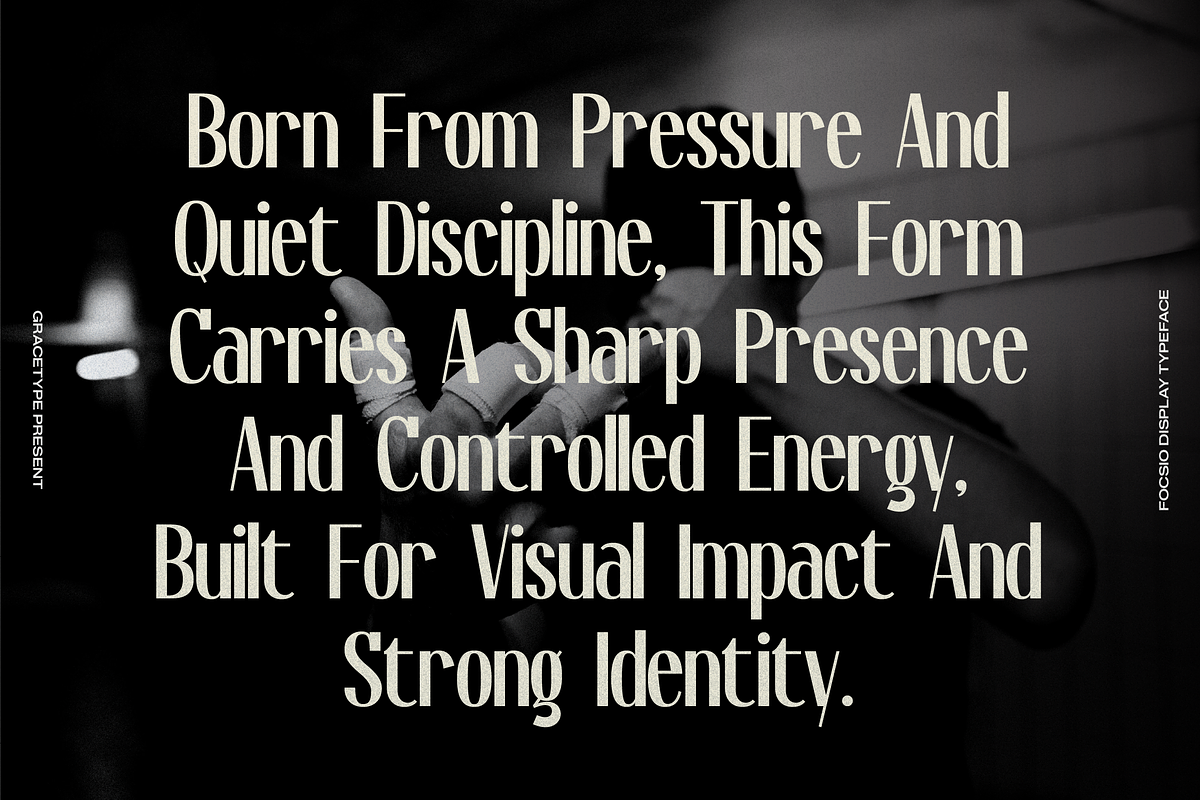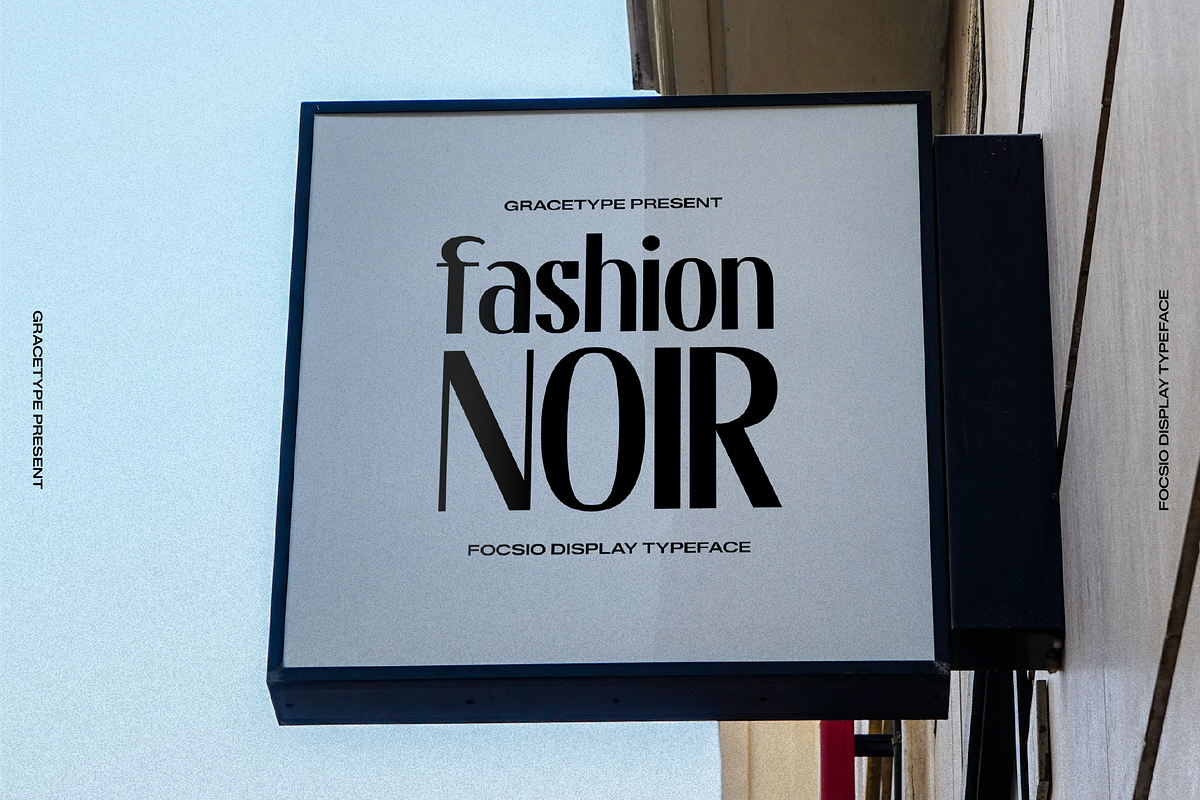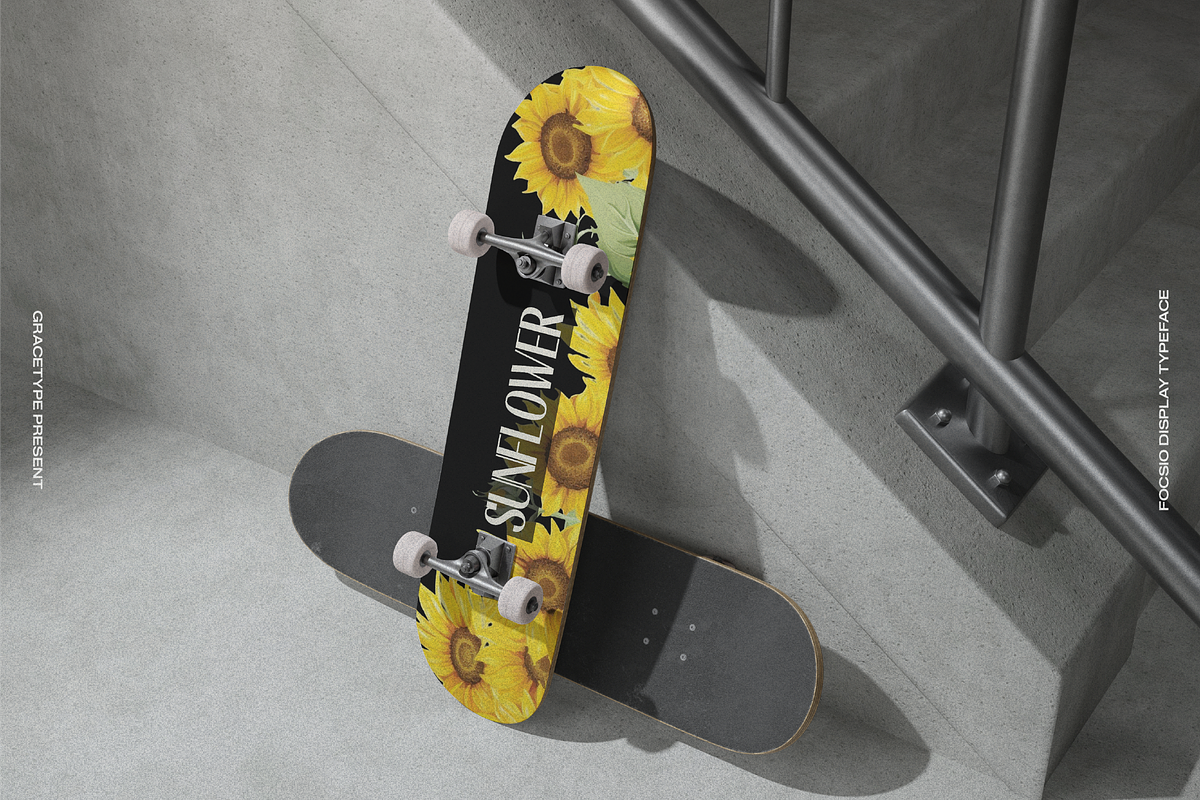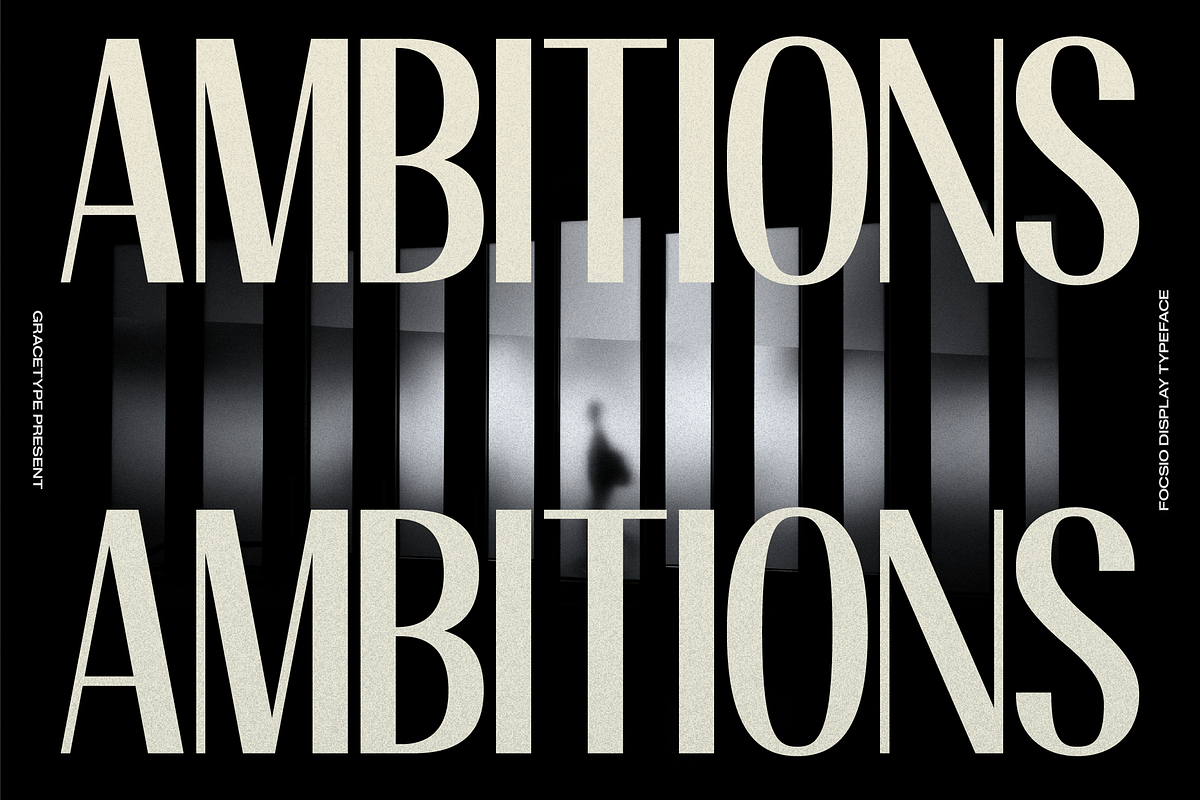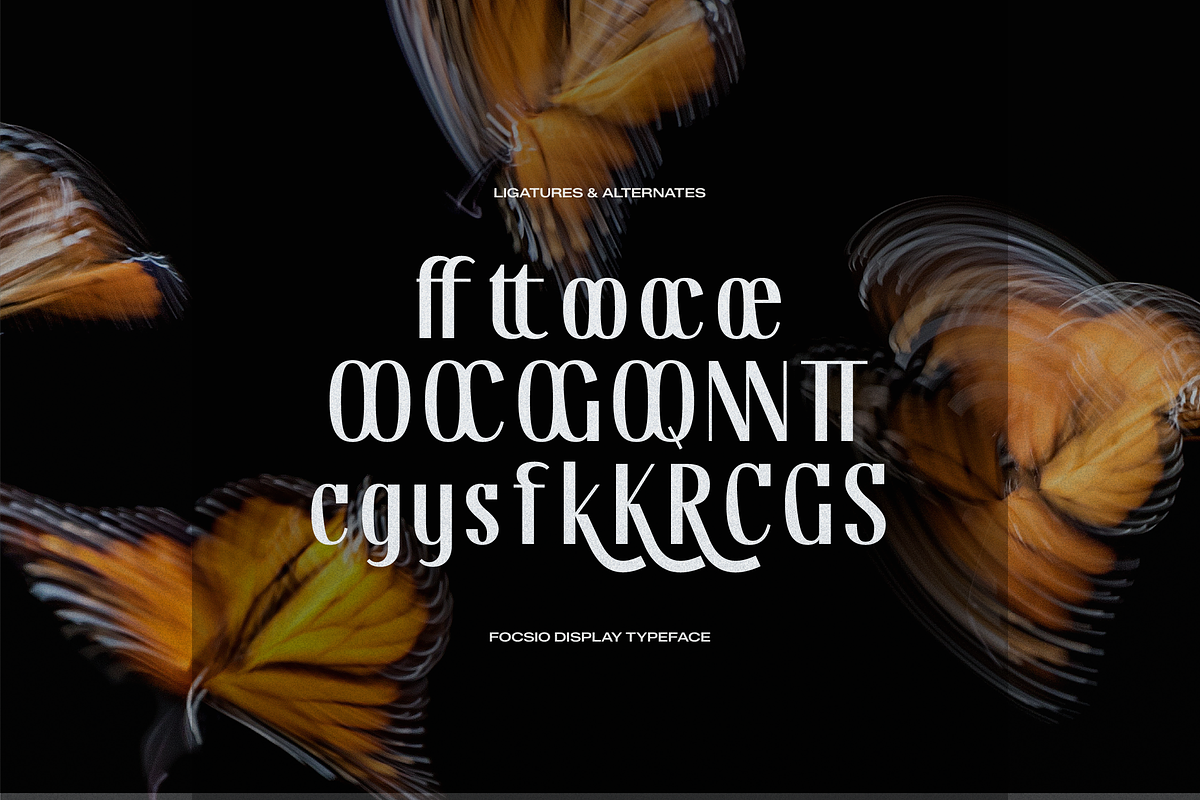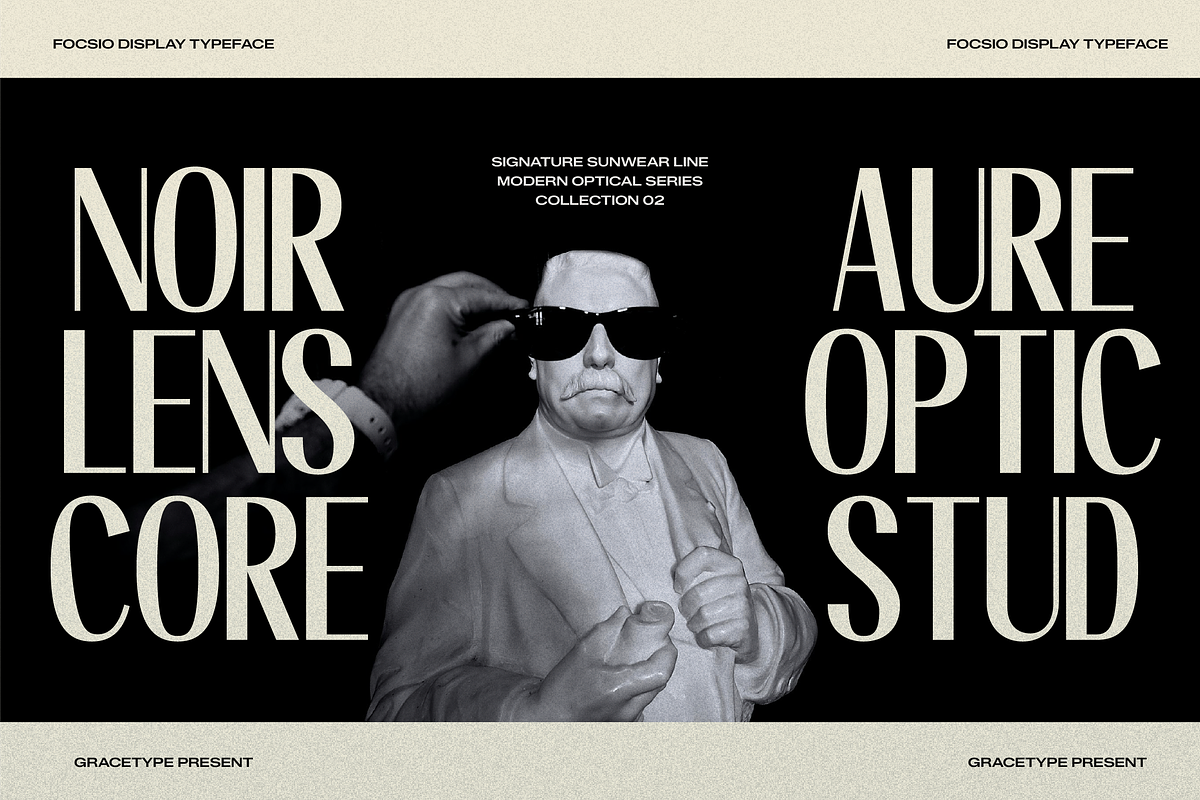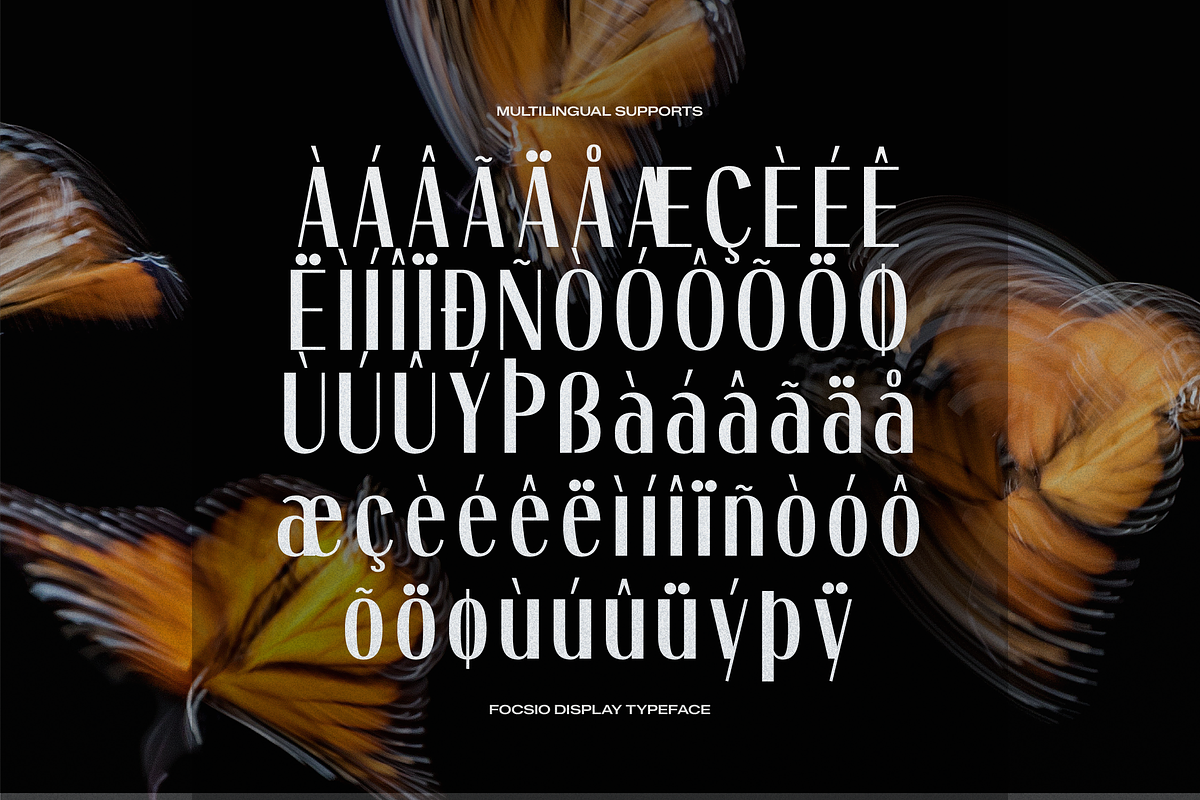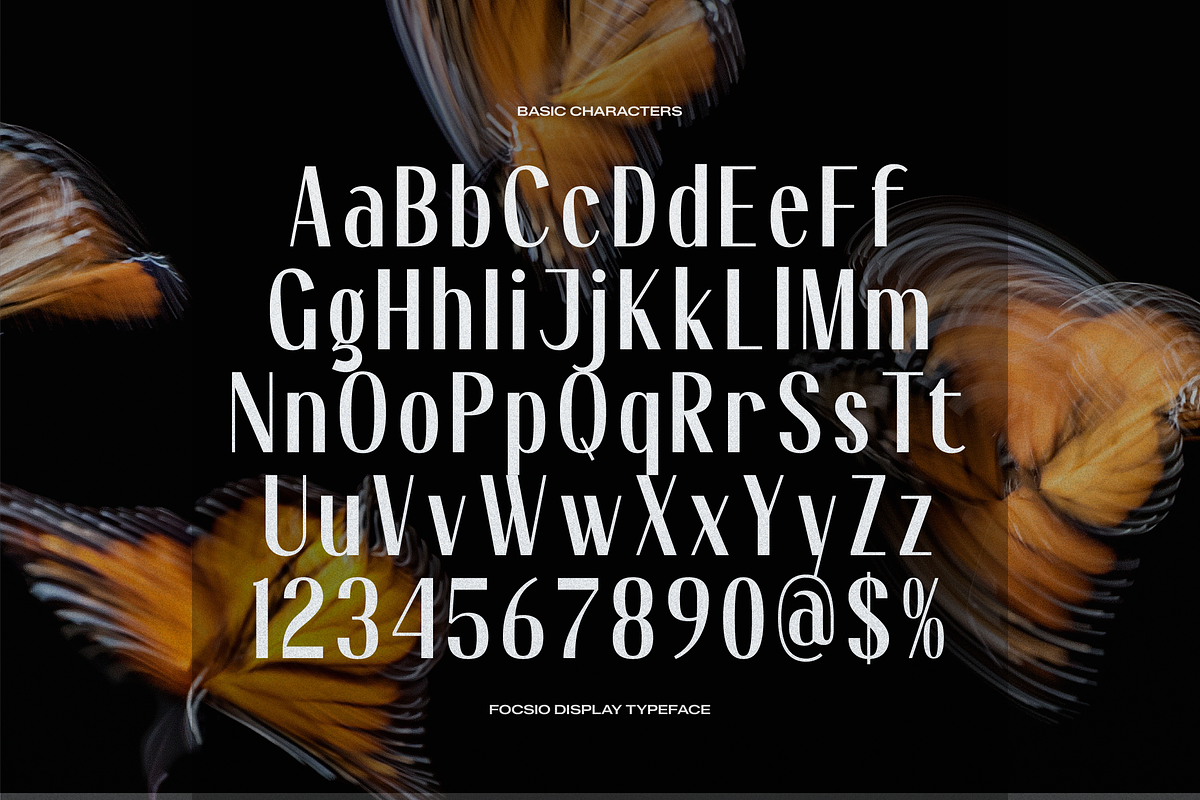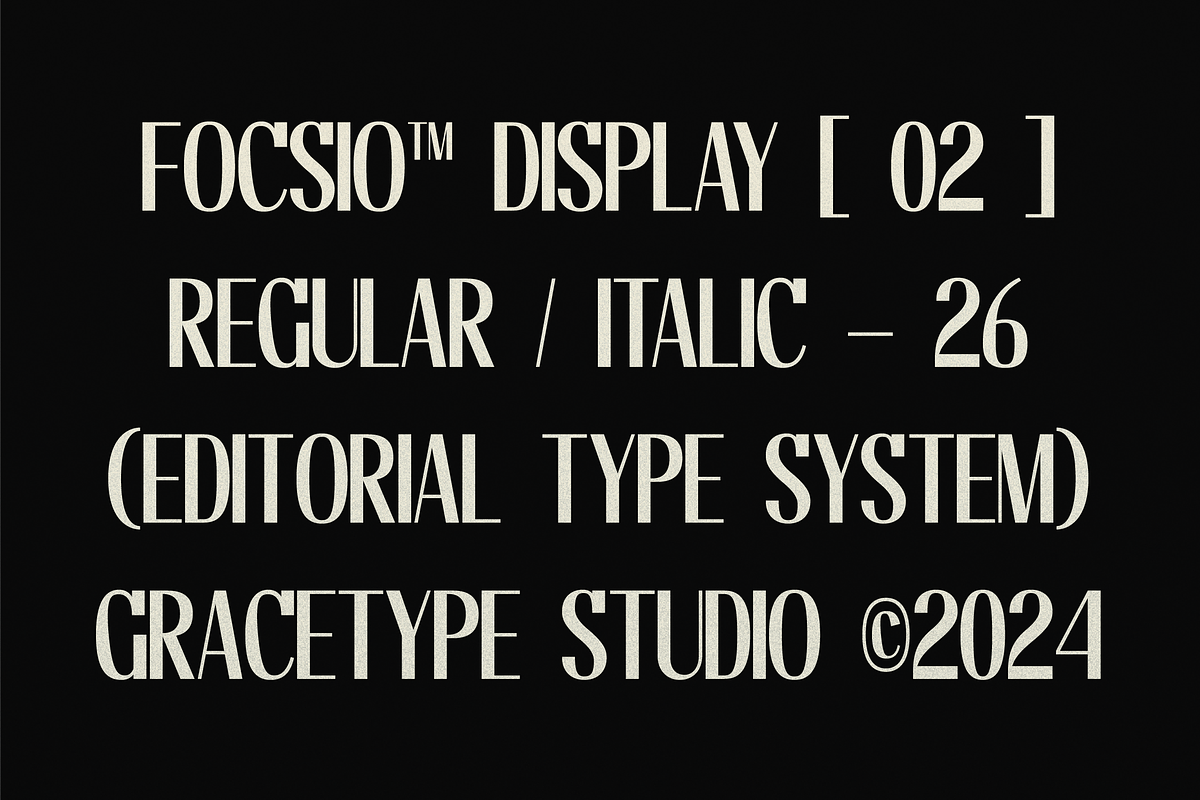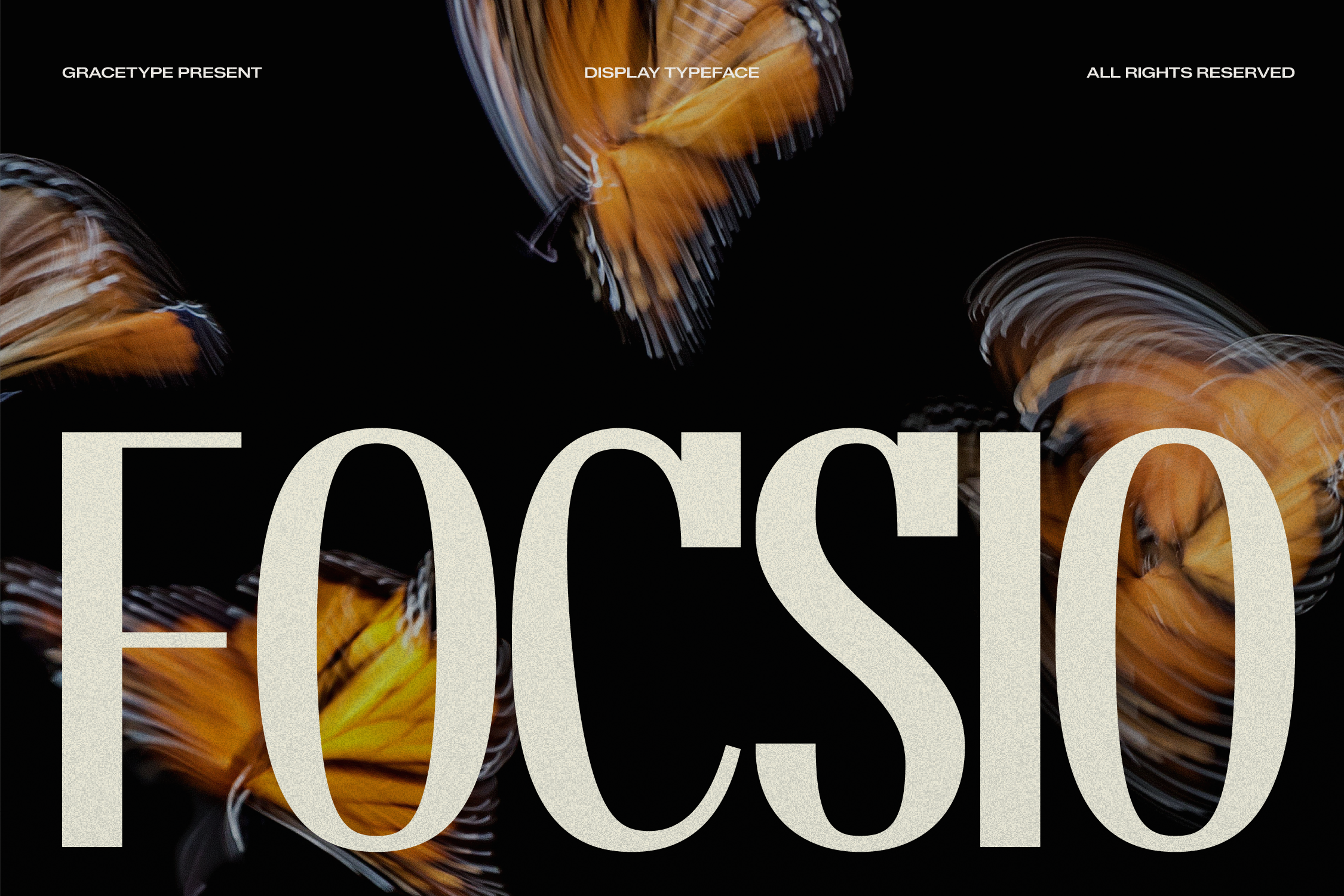
Focasio | Display Typeface
Focasio | Display Typeface, from Gracetypestudio, suitable for any projects such as: logos, branding projects, homeware designs, product packaging, mugs, quotes, posters, shopping bags, t-shirts, book covers, name card, invitation cards, greeting cards, label, photography, watermark, special events, and all your other lovely projects that need a sans taste.
Standard glyphs
Alternate and Ligature
Fonts include multilingual support